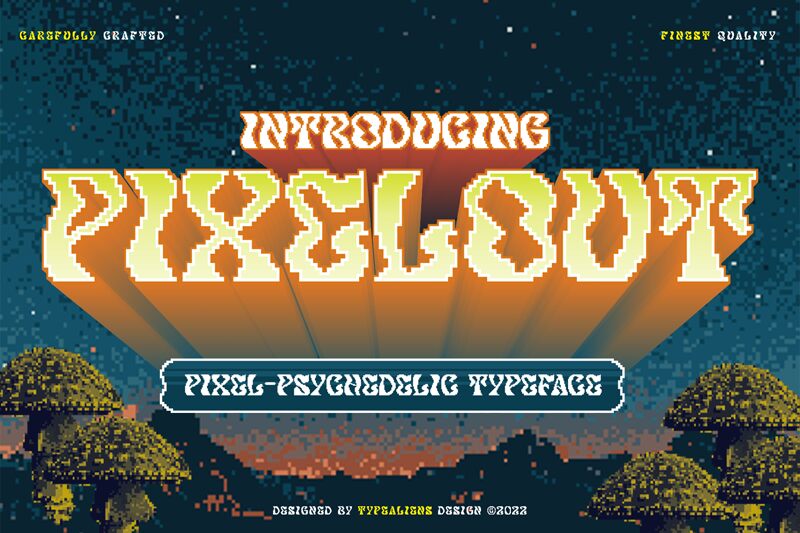
Pixelout font by ilhamtaro is a free bitmap font with a pixelated and digital-inspired design. The font features bold geometric shapes that offer the most basic representations of letters and numbers similar to how old devices like Gameboys presented them due to technical limitations. While the aesthetic is somewhat retro, it will immediately bring a futuristic mood to your designs.
Use Pixelout for digital games, badge design, gaming applications, digital blogs, social media posts about technology trends, inspirational posters with tech/innovation quotes and brand identity designs for tech startups or modern consoles.